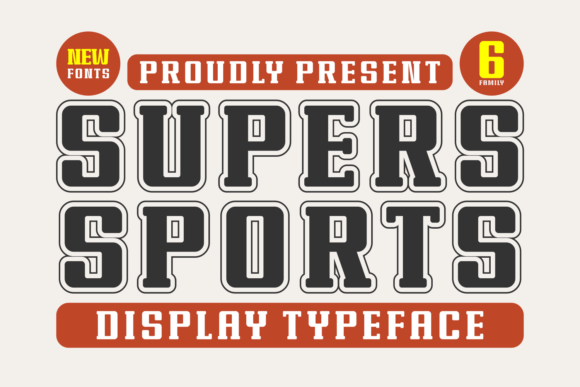
Introducing Supers Sports Font, the ultimate choice for those in search of the perfect font to make their holiday cards stand out. Designed by the talented Jasm from 7NTypes, this font is not just any ordinary display font - it's a powerful tool that will captivate your audience and leave a lasting impression.
With its robust design, Supers Sports Font is specifically crafted to grab attention and elevate your projects to new heights. Whether you're designing a sports-themed poster, creating a logo for your team, or even working on a movie or documentary project, this font is your secret weapon.
Imagine the impact of using Supers Sports Font on your next project. Its bold and vibrant touch will bring life to your designs, making them visually stunning and impossible to ignore. Your sports-inspired designs will come alive with the energy and enthusiasm they deserve, leaving your audience in awe.
Not only is Supers Sports Font perfect for sports-related projects, but it also has the versatility to be used in various other contexts. From book covers to headlines, from game graphics to documenters, this font will effortlessly adapt to any project you throw at it. Its flexibility knows no bounds, making it an essential addition to any designer's toolkit.
But what sets Supers Sports Font apart from the rest? It's not just about its captivating appearance; it's also about the emotions it evokes. This font exudes power, strength, and determination, instantly connecting with your audience on a deeper level. It ignites a sense of excitement and fuels the passion within, making it the perfect choice for projects that demand a strong and impactful visual presence.
Don't settle for ordinary fonts that fade into the background. Choose Supers Sports Font and let your designs take center stage. With its eye-catching appeal and keyword-rich attributes, this font will make your holiday cards unforgettable.